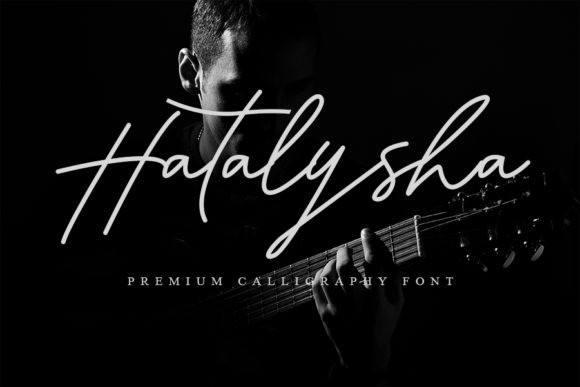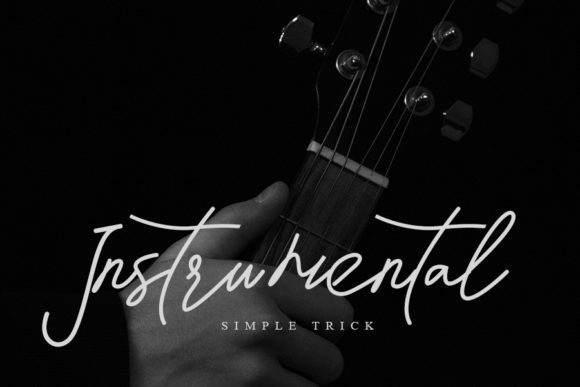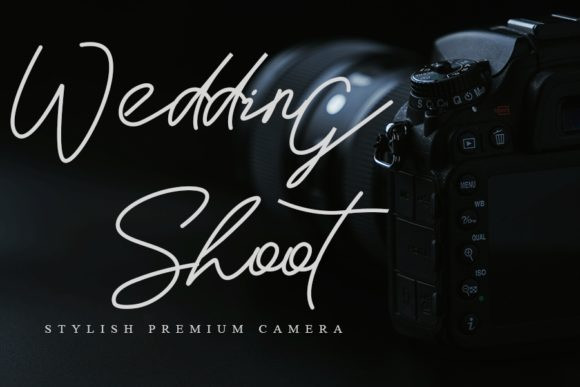
Hatalysha Handwritten Font
Hatalysha feels incredibly elegant and flowing. It looks stunning on wedding invitations, thank you cards, quotes, greeting cards, logos, business cards and every other design which needs a handwritten touch. It features a varying baseline, smooth lines, gorgeous glyphs and stunning alternates.